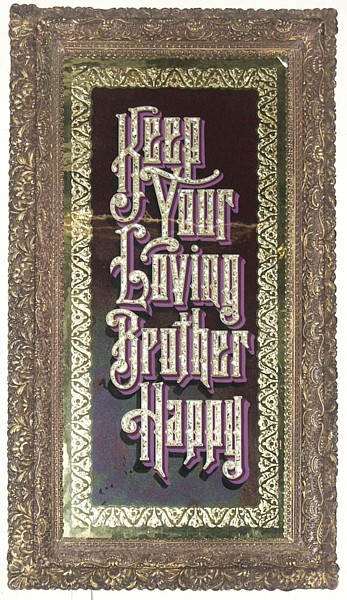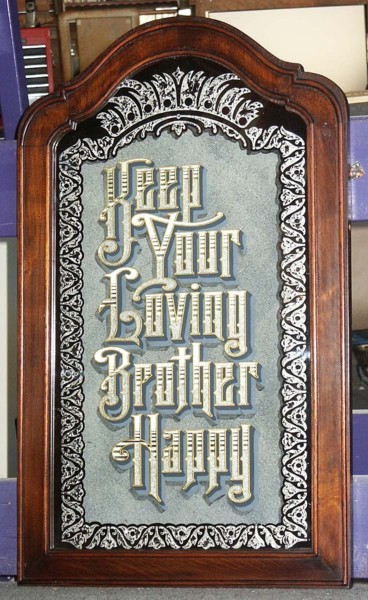
I won't be stoppin' at boarding houses where there's warm beds and hot grub on the table. I'll be traveling light and eatin' fast. What little sleeping is done will take place on the ground. This head board reminds me very little of the time I was forced to share a bed with Grandma Turner.
Excellent work...as usual. I always enjoy the way you incorporate things into your glass work. It inspires me to re-adjust my thinking !!
Couple years back, we did up this little commemorative piece.
Found this better frame for it over at Mantiques, in Niles, CA.
I think this new frames makes this piece a lot better!
Artwork for it was by Ken Davis....aka Stubby Preston....
You can keep on as you are....
(You can see the previous frame on page 21 of this thread.)
Well now Mr. Blake,
That sure adds a spit shine to it... I'll tell you what.
I thought Rick Glawson was partial to a frame that had a very similar look.
Tim
Re: Original Dead Men
I see it all clear as crystal.
Just think of it, pretty soon you'll be written up in all the history books.
Re: Original Dead Men
Pretty soon, we'll be posting something worth looking at....
....but I don't know!
....100,000...& one....every man's got a right to make a profit...
YEE HAW!
Re: Original Dead Men
When I went down to Daine's this last weekend...well, I received...present.
A present from one Roderick "The Kid" Treece....didn't take me too long to fix
it right up!
Re: Original Dead Men
How come Mr Black hasn't given no description about no gathering this year?
Rich Hawthorne
Re: Original Dead Men
Ya think maybe he's been in the saloon? Looks like the kinda place that swallows up a fella. I bet that sign blinds em on the way in an they can't find the door out ... not that they'd wanna leave ....
very nice sign by the kid. especially like the crackle finish
Re: Original Dead Men
He's to busy out in the woods stealin more dam trees.
Re: Original Dead Men
I appreciate humor, boys...
but I'm beginning to think you're cuttin' it a might thin....
Got the frame with the 100+ year old glass in it at an estate sale for $50. Did a slightly smaller version which now hangs in the Esoteric Gold Company studios. Up next is a companion piece to this one, which will say, "If that's the card you're dealt...That's the cards you play." !